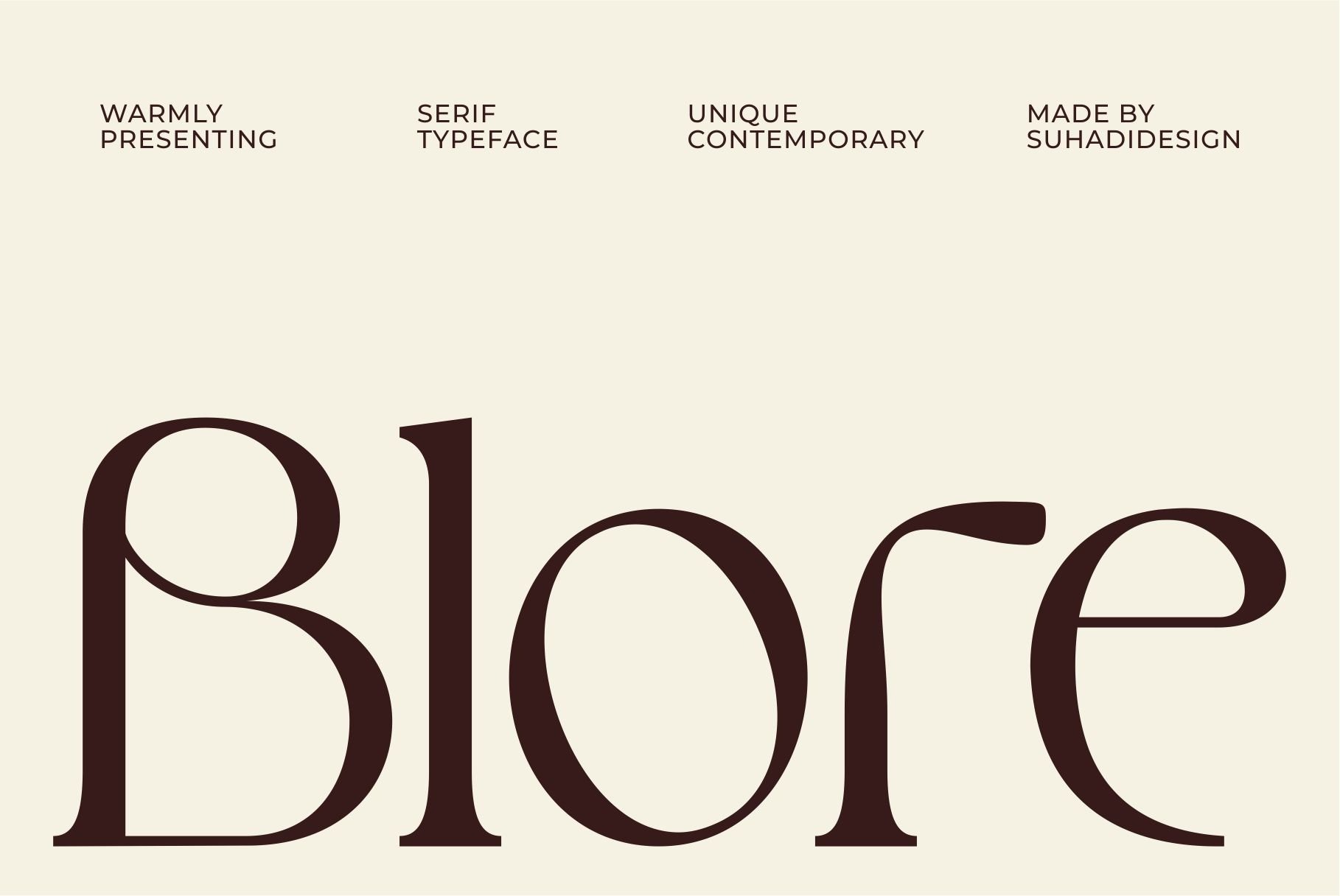
Blore Font
Blore Font is a versatile font designed to adapt beautifully across different design styles, offering dependable readability and balance. Blore is a unique and elegant serif font. With its elegant, contemporary design and up-to-date style, this font has become a favorite on the market. We maintain the elegant, classy, and stylish look of this font. Blore is a perfect choice for magazines, designs, books, publications, branding, brand names, business cards, social media, classy designs, newspapers, branding, beauty, and other projects. Blore is here to elevate the quality of your designs.